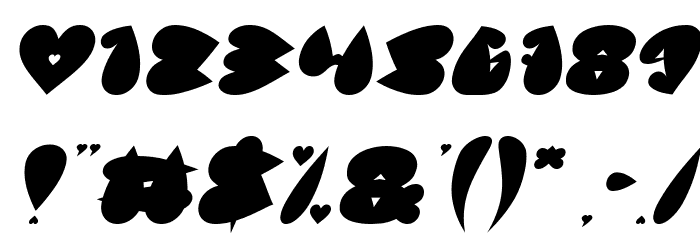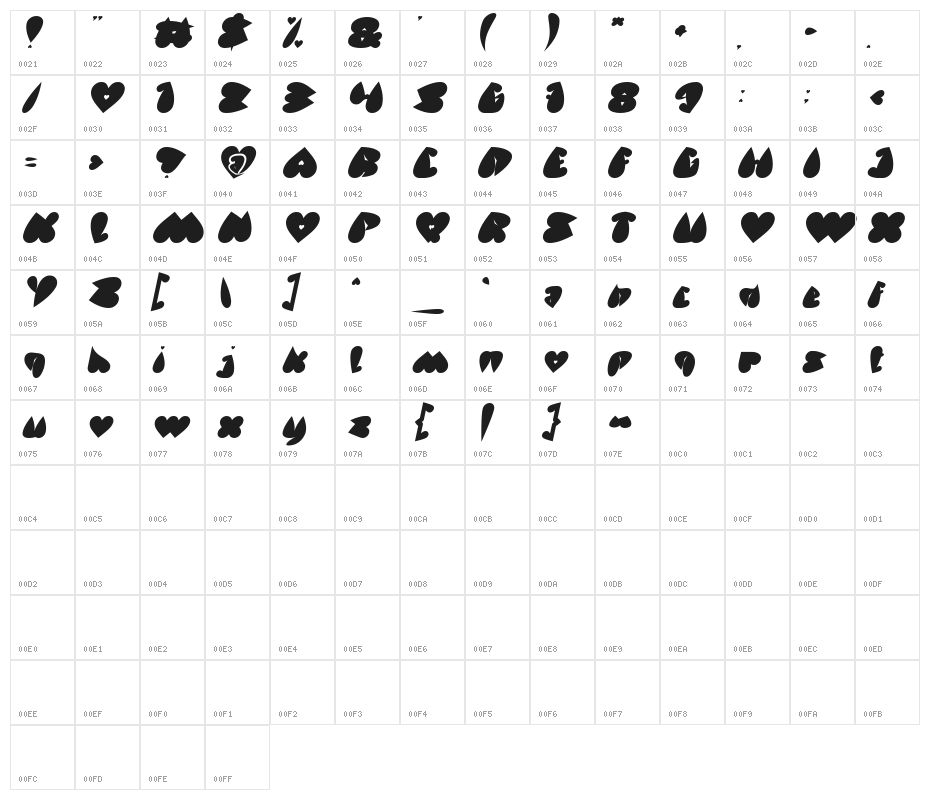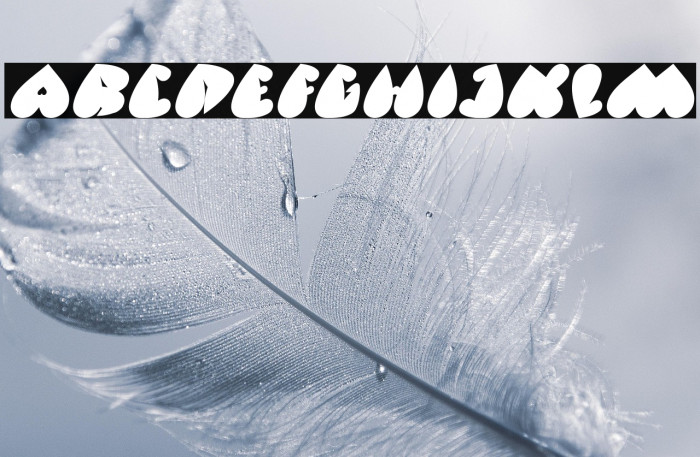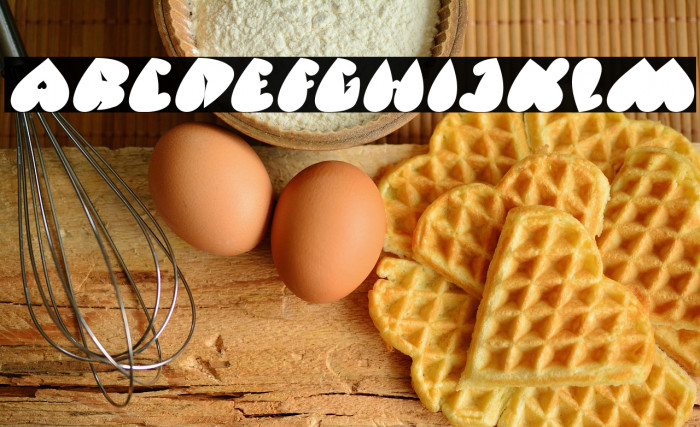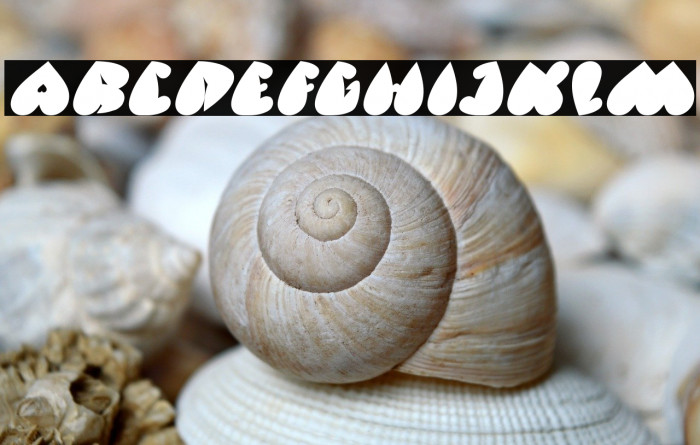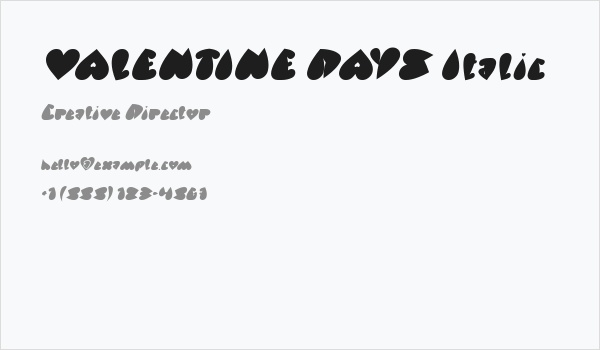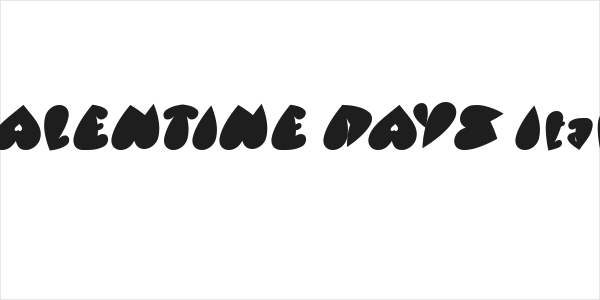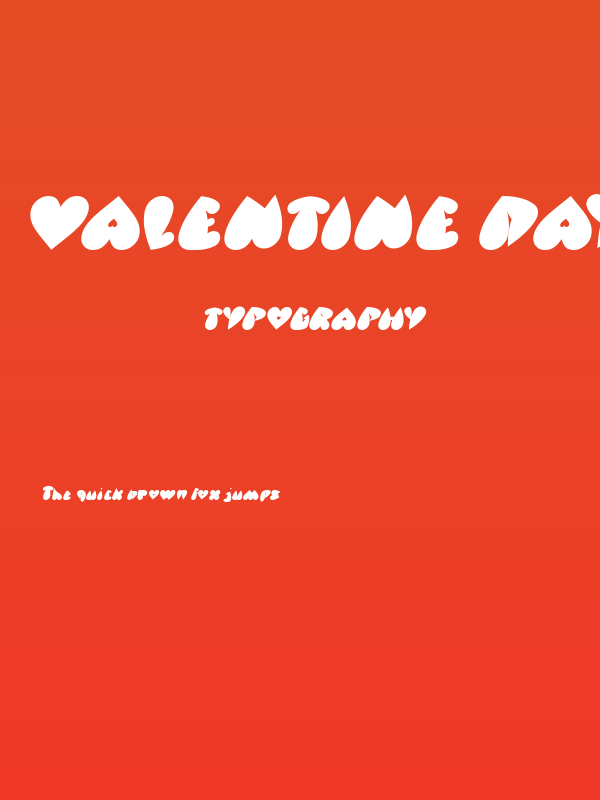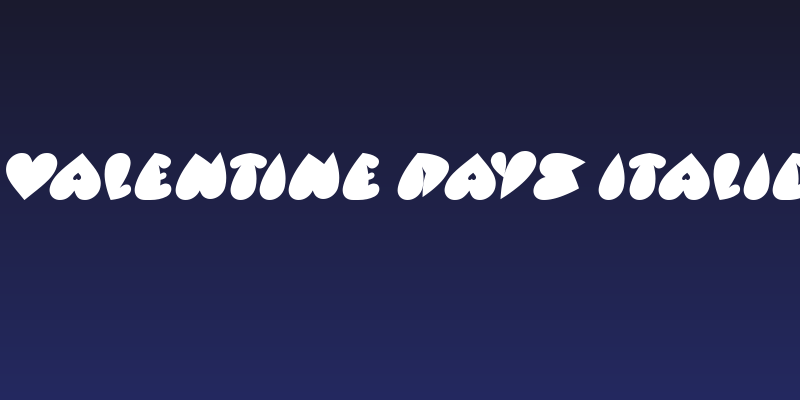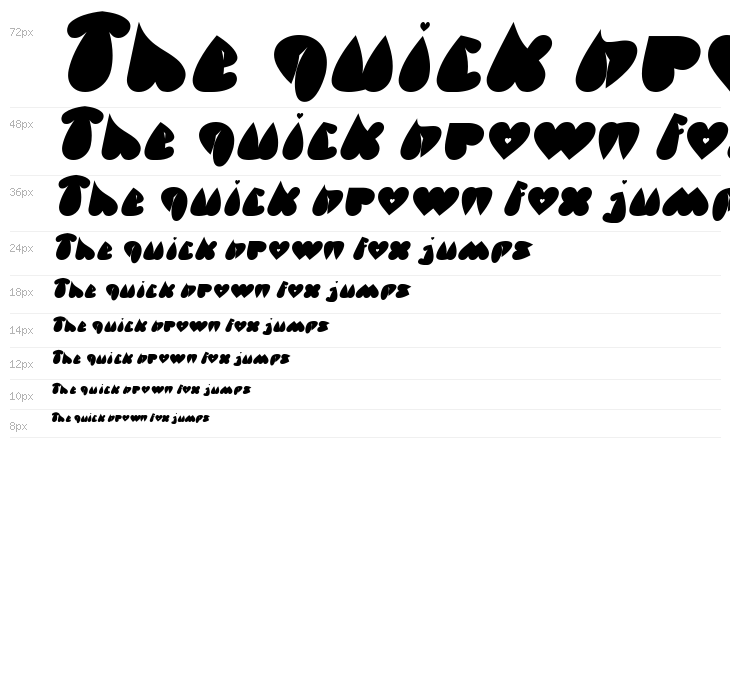
VALENTINE DAYS Italic Font
VALENTINE DAYS Italic Description
This playful and decorative font features bold, heart-shaped elements integrated into each character, creating a whimsical and romantic feel. The letters are rounded and thick, with a consistent stroke weight that emphasizes their boldness. The uppercase and lowercase letters maintain a cohesive style, with the heart motifs adding a unique touch to the overall design. Numbers and special characters follow the same theme, ensuring a uniform appearance across all glyphs. This font is perfect for projects that require a fun and loving aesthetic.